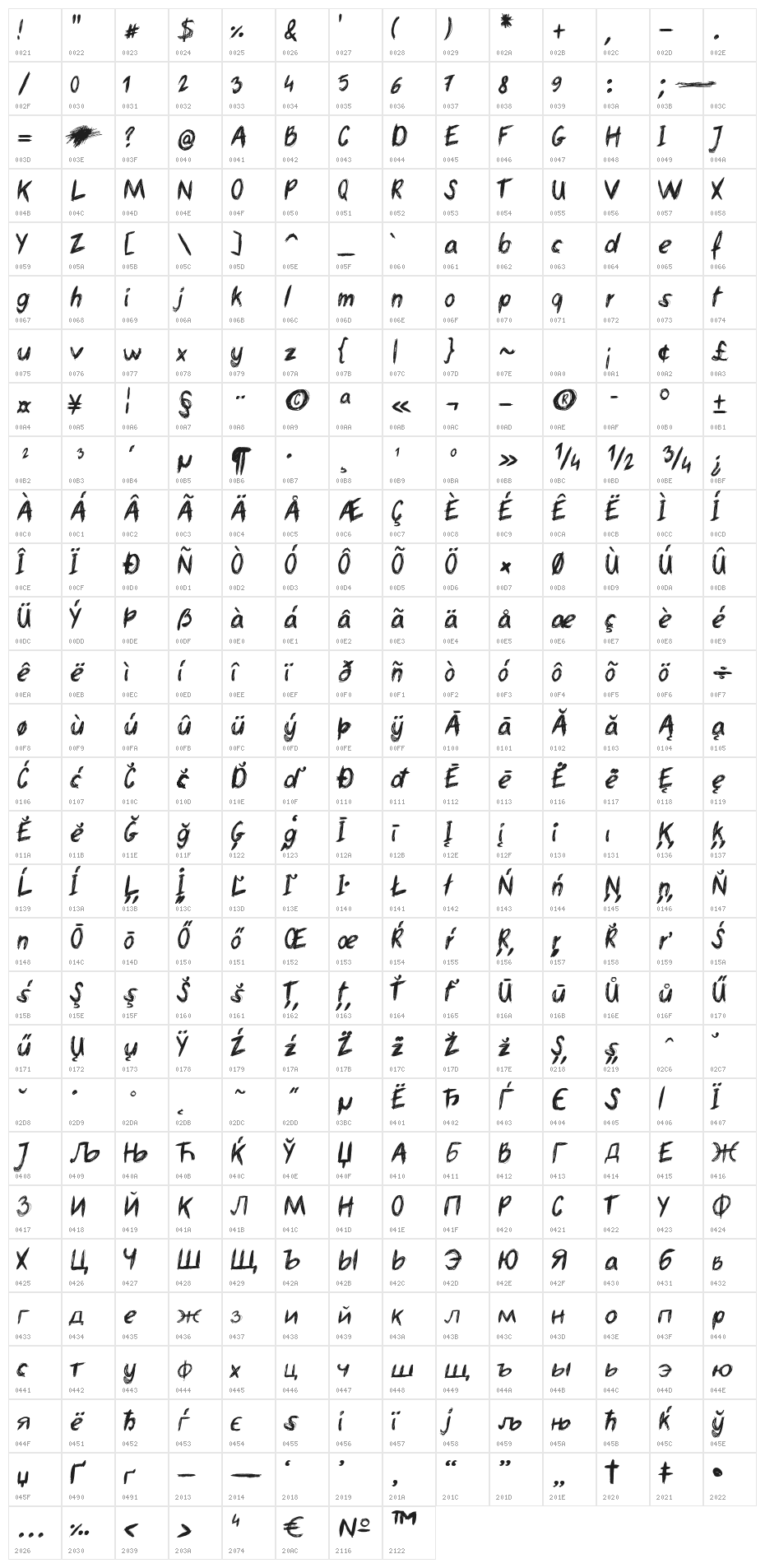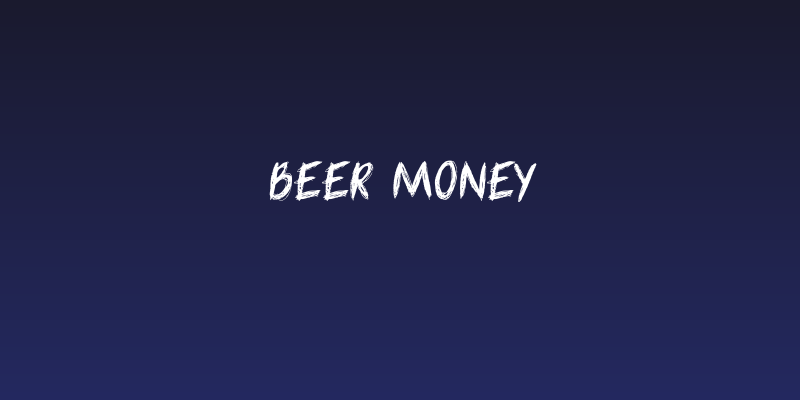
beer money Font
beer money Description
This font exudes a bold and energetic style, characterized by its rough, hand-drawn appearance. The strokes are uneven and textured, giving it a dynamic and expressive feel. Each character appears as if it has been sketched with a brush or marker, adding a sense of movement and spontaneity. The uppercase and lowercase letters maintain a consistent style, with the uppercase being slightly more pronounced. Numbers and special characters follow the same aesthetic, ensuring a cohesive look across all elements. This font is ideal for projects that require a raw, artistic touch.
| Proposed Projects | Perfect for artistic projects, posters, album covers, and any design needing a bold, expressive touch. |